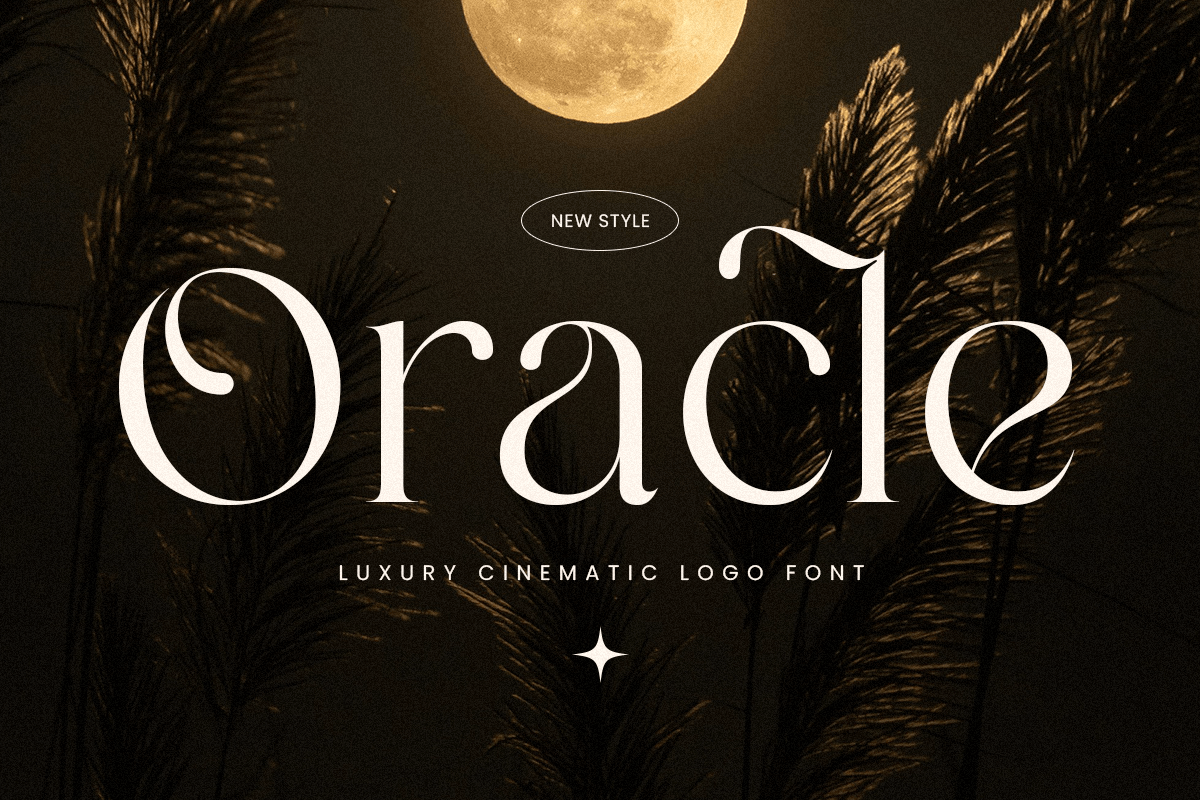
Oracle
-Cinematic Luxury Logo FontOracle is a modern luxury font crafted for those who seek elegance and sophistication in their design projects. Its clean lines and refined style make it an ideal choice for high-end branding, from fashion labels to luxury goods. Oracle brings a sense of exclusivity and class, elevating any design it graces with a polished, upscale feel.
Drawing inspiration from modern luxury aesthetics, Oracle’s balanced forms and subtle curves add a touch of timeless beauty. Whether used in logos, magazines, or upscale product packaging, this font seamlessly blends with contemporary and classic design elements, making it versatile for various projects that demand a premium look.
Unlock a world of refined branding possibilities with Oracle, a font that speaks to a luxurious and modern audience. Its stylish character ensures your message resonates with clarity and elegance, perfect for digital or print media.
Oracle Modern Luxury Font Features:
Elegant and Sophisticated Character Set
Unique Ligature & Alternative Characters